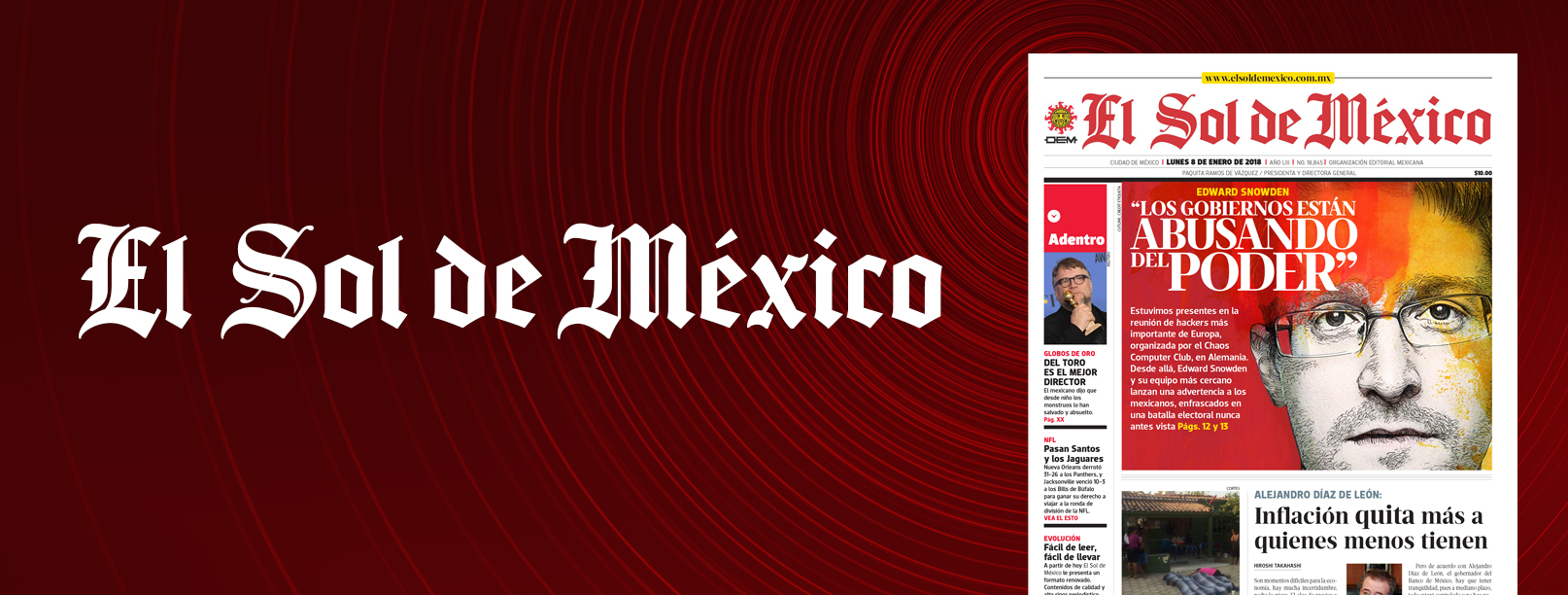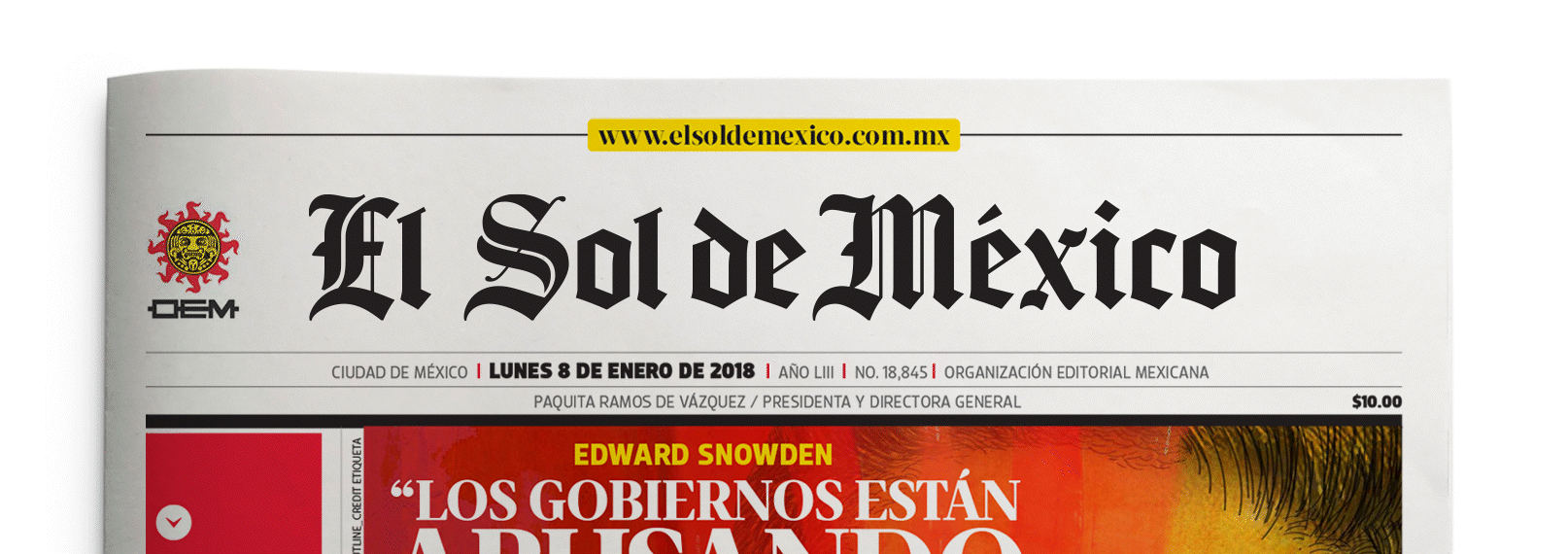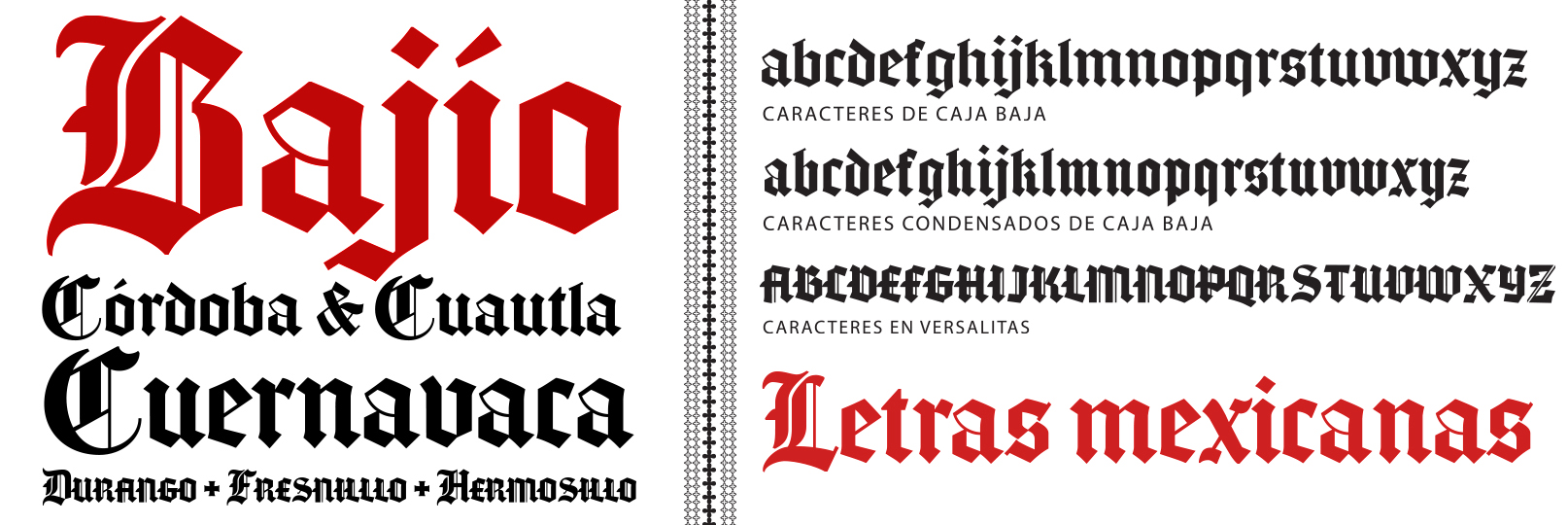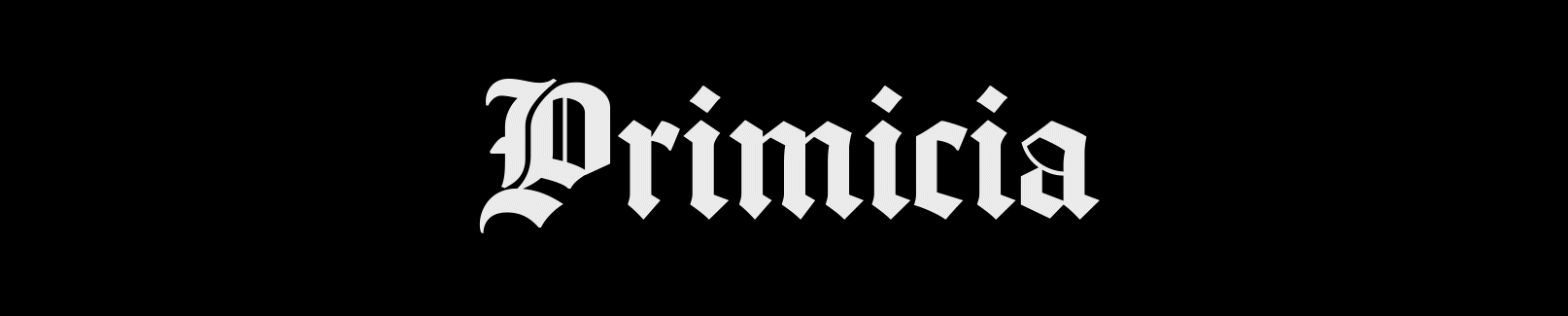
El Sol
- 2018
- Oscar Yañez
El Sol de México custom font is part of the rebranding of its masthead.
El Sol is a custom typeface designed by Oscar Yáñez based on his redesign of the masthead for the newspaper El Sol de México, which belongs to OEM (Organización Editorial Mexicana), the largest news hub in Latin America. The typeface was commissioned by creative director Oscar Santiago, who redesigned the newspaper and requested a masthead redesign first.
Following this redesign, it was necessary to adjust the mastheads for the 28 newspapers derived from it, newspapers throughout all the nation, all linked to El Sol de México. After exploring different solutions, we declined for a typeface as a best solution, would be more practical because new publications are constantly being added that require a newspaper masthead following ESM's graphic guidelines.
The El Sol typeface includes a Condensed version for particularly long names, as well as a Small Caps version for special editions and publications.
Ultimately, the project evolved into a cohesive typographic tool that ensures consistency, flexibility, and long-term sustainability across an expanding editorial network.